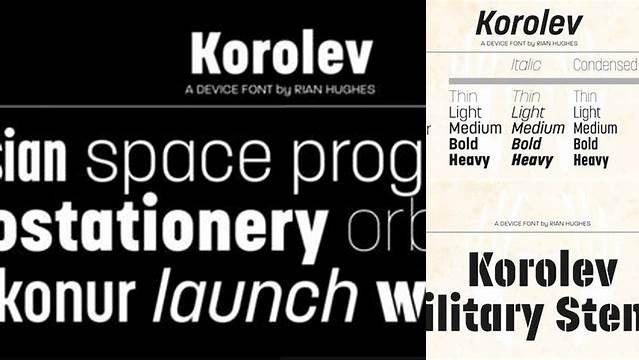
Hey guys! Looking to add a touch of modern elegance to your designs? You've probably heard of Korolev Alternates, a fantastic font that’s been making waves in the design world. In this guide, we're diving deep into everything you need to know about this awesome typeface, including how to snag it for free and make the most of it in your projects. So, let’s jump right in!
1. What is Korolev Alternates Font?
Korolev Alternates is a contemporary sans-serif typeface known for its clean lines, geometric shapes, and modern aesthetic. It’s a versatile font family that includes a variety of weights and styles, making it perfect for a wide range of design applications. What sets it apart are the alternate glyphs, which offer unique stylistic options that can add character and flair to your typography. This font is designed to be both legible and visually appealing, making it a popular choice for branding, editorial design, and web projects. The versatility of Korolev Alternates extends to its use in both headlines and body text, providing designers with a cohesive typographic palette. When choosing a font, designers often consider readability, visual appeal, and the overall tone it conveys. Korolev Alternates excels in all these aspects, making it a valuable asset for any designer’s toolkit. Its modern and clean design ensures that it will remain relevant for years to come, making it a wise investment for any creative project. Moreover, the alternate glyphs offer a level of customization that can truly set your designs apart. The geometric construction of Korolev Alternates gives it a structured and professional feel, while the subtle variations in the alternate characters add a touch of personality. This balance between structure and individuality makes it a font that can adapt to a variety of design styles and applications. Whether you're working on a sleek corporate identity or a creative editorial layout, Korolev Alternates provides the flexibility and elegance needed to achieve your vision.
2. Key Features of Korolev Alternates
So, what makes Korolev Alternates so special? Let's break down its key features. First off, it boasts multiple weights and styles, giving you the flexibility to use it in various design contexts. You’ve got everything from light and regular to bold and black, which means you can create visual hierarchy easily. But the real kicker? The alternate glyphs. These little variations can completely change the vibe of your text, making it more unique and eye-catching. Think of it as having a secret weapon in your typography arsenal. Another key feature is its clean and modern design. Korolev Alternates is super legible, which is crucial for both print and digital applications. No one wants to squint to read your work, right? The font’s clarity ensures your message comes across loud and clear. Plus, its geometric forms lend a contemporary feel, making it perfect for brands that want to project a forward-thinking image. And let's not forget its versatility. Seriously, this font can do it all. From logos and headlines to body text and captions, Korolev Alternates fits seamlessly into any project. It’s like that one friend who gets along with everyone. Its adaptability makes it a go-to choice for designers who want a reliable and stylish typeface. The balance between its functional and aesthetic qualities is what truly sets Korolev Alternates apart. It doesn’t just look good; it performs exceptionally well in various applications, ensuring that your designs are both beautiful and effective. The thoughtful design of its character set, including the alternate glyphs, provides endless possibilities for creative expression, making it a font that you’ll want to reach for time and time again.
3. Korolev Alternates Font Family Overview
When we talk about the Korolev Alternates font family, we're not just talking about a single style. This is a comprehensive collection that offers a range of weights and styles, each with its own unique charm. You've got the lighter weights, perfect for delicate designs and body text, all the way up to the bold and black weights, ideal for headlines and attention-grabbing elements. The beauty of this family lies in its cohesiveness. All the styles work together seamlessly, allowing you to create a consistent and professional look across your projects. But the fun doesn't stop there! The inclusion of alternate glyphs adds an extra layer of creativity. These variations on the standard characters can be used to emphasize certain words, create unique logos, or simply add a touch of personality to your designs. It's like having a whole new set of fonts within the same family. Think of the Korolev Alternates font family as a well-stocked toolbox for designers. It provides all the tools you need to tackle a variety of design challenges, from branding and web design to print and editorial projects. The range of weights ensures that you can create a clear visual hierarchy, guiding the reader's eye through your design. The alternate glyphs offer a way to customize your typography, making your work stand out from the crowd. The versatility of the family means you can use it for everything from sleek corporate materials to creative marketing campaigns. This adaptability makes Korolev Alternates a valuable asset for any designer, regardless of their style or the type of projects they work on. It’s a font family that not only looks good but also provides the flexibility and functionality needed to bring your creative visions to life.
4. How to Identify Korolev Alternates Font
Okay, so you've seen this font around and you're wondering, “Is that Korolev Alternates?” Here’s how to spot it. First, pay attention to its clean lines and geometric shapes. This is a hallmark of the font. It has a very modern and streamlined feel. Next, look for the alternate glyphs. These are the unique characters that set it apart from other sans-serif fonts. They might be subtle, but they add a distinctive touch. Another clue is the font’s overall legibility. Korolev Alternates is designed to be easy to read, even in smaller sizes. If a font looks clean and clear, chances are it could be Korolev Alternates. If you're still unsure, try using a font identification tool. There are plenty of websites and apps that can analyze an image of text and tell you what font it is. Just upload a screenshot or a photo, and the tool will do its magic. These tools work by comparing the shapes and proportions of the characters to a database of fonts. It's a super handy way to quickly identify a font you've come across. Remember, the key characteristics of Korolev Alternates are its geometric construction, clean lines, and the presence of alternate glyphs. These elements combine to create a typeface that is both modern and versatile. By paying attention to these features, you'll be able to identify Korolev Alternates in no time. And once you can recognize it, you'll start to appreciate its subtle nuances and the ways it can enhance your designs. Whether you're a seasoned designer or just starting out, knowing how to identify fonts is a valuable skill. It allows you to understand the choices that others have made in their designs and to make informed decisions about your own typography.
5. Where to Use Korolev Alternates Font
So, you've got Korolev Alternates in your toolkit—now what? This font is seriously versatile, making it a great choice for tons of different projects. Think branding. Korolev Alternates lends a modern and professional vibe to logos, business cards, and other corporate materials. It's also fantastic for web design. Its legibility makes it perfect for website headers, body text, and navigation menus. Plus, it looks great on screens of all sizes. If you're working on editorial design, this font is a winner. It works well in magazines, brochures, and books, providing a clean and contemporary look. And let's not forget marketing materials. Whether you're creating flyers, posters, or social media graphics, Korolev Alternates can help your message stand out. Its unique alternate glyphs can add a touch of personality to your designs, making them more memorable. Consider using Korolev Alternates for projects that require a balance of elegance and functionality. Its clean lines and geometric forms make it suitable for professional applications, while the alternate characters allow for creative expression. It’s a font that can adapt to a variety of styles, from minimalist to bold and expressive. The key is to experiment and see how it works in different contexts. Try using it in combination with other fonts to create interesting contrasts and visual hierarchies. Remember, typography is an essential element of design, and choosing the right font can make a big difference in the overall impact of your work. Korolev Alternates offers a blend of versatility and sophistication, making it a valuable asset for any designer. Its adaptability extends to both print and digital media, ensuring that your designs look great across all platforms. Whether you’re crafting a new brand identity or updating an existing one, this font can help you achieve a modern and polished look.
6. Korolev Alternates for Branding
When it comes to branding, Korolev Alternates is a real game-changer. Its modern and clean aesthetic can elevate your brand’s visual identity, making it look professional and sophisticated. Imagine using it for your logo—the sharp lines and geometric forms convey a sense of precision and attention to detail. This font can also shine in your brand’s visual guidelines, ensuring that your marketing materials, website, and other assets have a consistent and polished look. Think about business cards, letterheads, and presentations. Korolev Alternates adds a touch of elegance to these essential elements, helping you make a strong impression. But the real magic happens when you incorporate the alternate glyphs. These subtle variations can add personality to your brand’s typography, making it more memorable and unique. Perhaps you use an alternate character in your logo or to emphasize key words in your marketing materials. These small touches can make a big difference. Choosing the right font for your brand is a critical decision. It’s not just about aesthetics; it’s about conveying your brand’s values and personality. Korolev Alternates strikes a perfect balance between professionalism and creativity, making it an excellent choice for brands that want to project a modern and forward-thinking image. Its versatility extends to various industries, from technology and finance to fashion and design. The key is to use it strategically. Consider the overall tone and message you want to convey. Korolev Alternates can be both authoritative and approachable, depending on how you use it. Experiment with different weights and styles to find the perfect balance for your brand. Remember, your typography is a key component of your brand identity. It's one of the first things people notice, and it can significantly impact their perception of your brand. By choosing Korolev Alternates, you're making a statement that your brand values quality, innovation, and attention to detail.
7. Using Korolev Alternates in Web Design
Web design is all about readability and visual appeal, and Korolev Alternates totally nails both. Its clean, legible design makes it a fantastic choice for website headers, body text, and navigation menus. No more squinting for your visitors! Plus, it looks sharp on all screen sizes, which is crucial in today's mobile-first world. Imagine your website's headlines in a bold weight of Korolev Alternates, instantly grabbing attention. Then, picture the body text flowing smoothly in a lighter weight, making for a comfortable reading experience. The font’s versatility allows you to create a clear visual hierarchy, guiding users through your content effortlessly. And the alternate glyphs? They’re a perfect way to add a touch of personality to your web design. Use them sparingly to highlight important sections or create unique button styles. One of the best things about using Korolev Alternates in web design is its modern aesthetic. It gives your site a contemporary feel, making it look fresh and up-to-date. This is especially important for brands that want to project a forward-thinking image. When choosing fonts for your website, consider the overall user experience. You want something that’s not only visually appealing but also easy to read. Korolev Alternates excels in both these areas, making it a smart choice for any web design project. Experiment with different font pairings to find the perfect complement to Korolev Alternates. A classic serif font can create a nice contrast, adding a touch of elegance to your design. Remember, typography plays a crucial role in web design. It's not just about the words themselves; it's about how they look and feel. By choosing Korolev Alternates, you're investing in a font that will enhance your website's visual appeal and improve the overall user experience. Its clarity and versatility make it a valuable asset for any web designer.
8. Korolev Alternates for Print Projects
Print projects demand fonts that are both visually appealing and highly legible, and guess what? Korolev Alternates fits the bill perfectly! Whether you’re designing brochures, posters, magazines, or business cards, this font brings a touch of modern sophistication to your printed materials. Its clean lines and geometric shapes ensure that your text looks crisp and professional, no matter the size. Envision your company brochure with headlines set in a bold weight of Korolev Alternates, instantly capturing the reader's attention. Then, imagine the body text flowing smoothly in a lighter weight, creating a comfortable reading experience. The font’s versatility makes it easy to establish a clear visual hierarchy, guiding the reader through your content seamlessly. And those alternate glyphs? They’re a fantastic way to add a unique flair to your print designs. Use them strategically to emphasize key messages or create eye-catching logos. One of the standout qualities of Korolev Alternates for print is its legibility. Even in smaller sizes, the characters remain clear and easy to read, which is crucial for printed materials. Nobody wants to strain their eyes trying to decipher your message! When selecting fonts for print, think about the overall aesthetic you want to achieve. Korolev Alternates offers a contemporary feel, making it ideal for brands that aim to project a modern image. Its clean design ensures that your printed materials look polished and professional. Experiment with different weights and styles to discover the perfect combination for your project. A bold weight can make a strong statement, while a lighter weight can create a more subtle effect. Remember, typography is a vital element of print design. It’s not just about the words; it’s about how they appear on the page. By opting for Korolev Alternates, you’re investing in a font that will elevate your print projects and ensure they make a lasting impression. Its clarity, versatility, and modern aesthetic make it a valuable asset for any designer working in print.
9. Editorial Design with Korolev Alternates
Editorial design requires fonts that are both beautiful and highly functional, and Korolev Alternates truly shines in this realm. Whether you’re working on magazines, books, or newsletters, this font provides a modern and sophisticated touch that can elevate your layouts. Its clean lines and geometric forms ensure that your text is both visually appealing and easy to read, which is essential for engaging your audience. Picture magazine headlines set in a bold weight of Korolev Alternates, immediately grabbing the reader's attention. Then, envision the body text flowing smoothly in a lighter weight, creating a comfortable reading experience that encourages readers to delve deeper into the content. The font’s versatility allows you to establish a clear visual hierarchy, guiding the reader through the article or story seamlessly. And those alternate glyphs? They offer a fantastic opportunity to add a unique and creative touch to your editorial designs. Use them strategically to highlight key phrases, create distinctive drop caps, or design eye-catching page numbers. One of the standout features of Korolev Alternates for editorial design is its legibility. In long-form text, readability is paramount, and this font excels in that area. Even in smaller sizes, the characters remain clear and easy on the eyes, ensuring that readers can focus on the content without strain. When choosing fonts for editorial projects, consider the overall tone and style of the publication. Korolev Alternates offers a contemporary aesthetic, making it ideal for publications that aim to project a modern and forward-thinking image. Its clean design ensures that your layouts look polished and professional, enhancing the credibility of your content. Experiment with different font pairings to find the perfect complement to Korolev Alternates. A classic serif font can create a beautiful contrast, adding a touch of elegance to your designs. Remember, typography is a critical element of editorial design. It’s not just about the words; it’s about how they appear on the page and how they contribute to the overall reading experience. By choosing Korolev Alternates, you’re investing in a font that will enhance your editorial projects and ensure they make a lasting impression on your readers. Its clarity, versatility, and modern aesthetic make it an invaluable asset for any editorial designer.
10. Korolev Alternates in Marketing Materials
In the world of marketing, your materials need to grab attention and convey your message clearly, and Korolev Alternates is up to the challenge. This font’s modern and versatile nature makes it a fantastic choice for a wide range of marketing materials, from flyers and brochures to posters and social media graphics. Its clean lines and geometric shapes ensure that your text looks professional and polished, helping you make a strong impression on your target audience. Imagine your marketing flyers with headlines set in a bold weight of Korolev Alternates, instantly capturing the attention of potential customers. Then, picture the body text flowing smoothly in a lighter weight, providing clear and concise information about your products or services. The font’s versatility makes it easy to create a clear visual hierarchy, guiding the reader through your message seamlessly. And those alternate glyphs? They’re a perfect way to add a touch of creativity and personality to your marketing designs, making them more memorable and engaging. One of the key advantages of using Korolev Alternates in marketing materials is its legibility. In marketing, clarity is crucial, and this font ensures that your message is easily readable, even in smaller sizes. This is especially important for materials that are viewed quickly, such as social media ads or posters. When selecting fonts for your marketing projects, consider the overall tone and style of your brand. Korolev Alternates offers a contemporary aesthetic, making it ideal for brands that want to project a modern and forward-thinking image. Its clean design ensures that your marketing materials look professional and trustworthy, enhancing your brand’s credibility. Experiment with different weights and styles to find the perfect combination for your project. A bold weight can create a sense of urgency, while a lighter weight can convey a more sophisticated and elegant feel. Remember, typography is a critical element of marketing design. It’s not just about the words; it’s about how they appear and how they contribute to the overall impact of your message. By choosing Korolev Alternates, you’re investing in a font that will elevate your marketing materials and help you achieve your goals. Its clarity, versatility, and modern aesthetic make it an invaluable asset for any marketer or designer.
11. Korolev Alternates and Logo Design
12. Pairing Korolev Alternates with Other Fonts
13. Korolev Alternates Free vs. Paid Versions
14. Downloading Korolev Alternates for Free Legally
15. Installing Korolev Alternates on Different Operating Systems
16. Troubleshooting Common Korolev Alternates Installation Issues
17. Korolev Alternates Web Font Implementation
18. Korolev Alternates Licensing Information
19. Using Korolev Alternates in Adobe Creative Suite
20. Korolev Alternates Design Tips and Tricks
21. Korolev Alternates for Headlines and Titles
22. Korolev Alternates for Body Text and Paragraphs
23. Exploring Korolev Alternates Alternate Glyphs
24. Korolev Alternates in UI/UX Design
25. Korolev Alternates Font Weight and Style Variations
26. Korolev Alternates vs. Similar Sans-Serif Fonts
27. Korolev Alternates Case Studies and Examples
28. The Future of Korolev Alternates Font
30. Resources for Learning More About Korolev Alternates